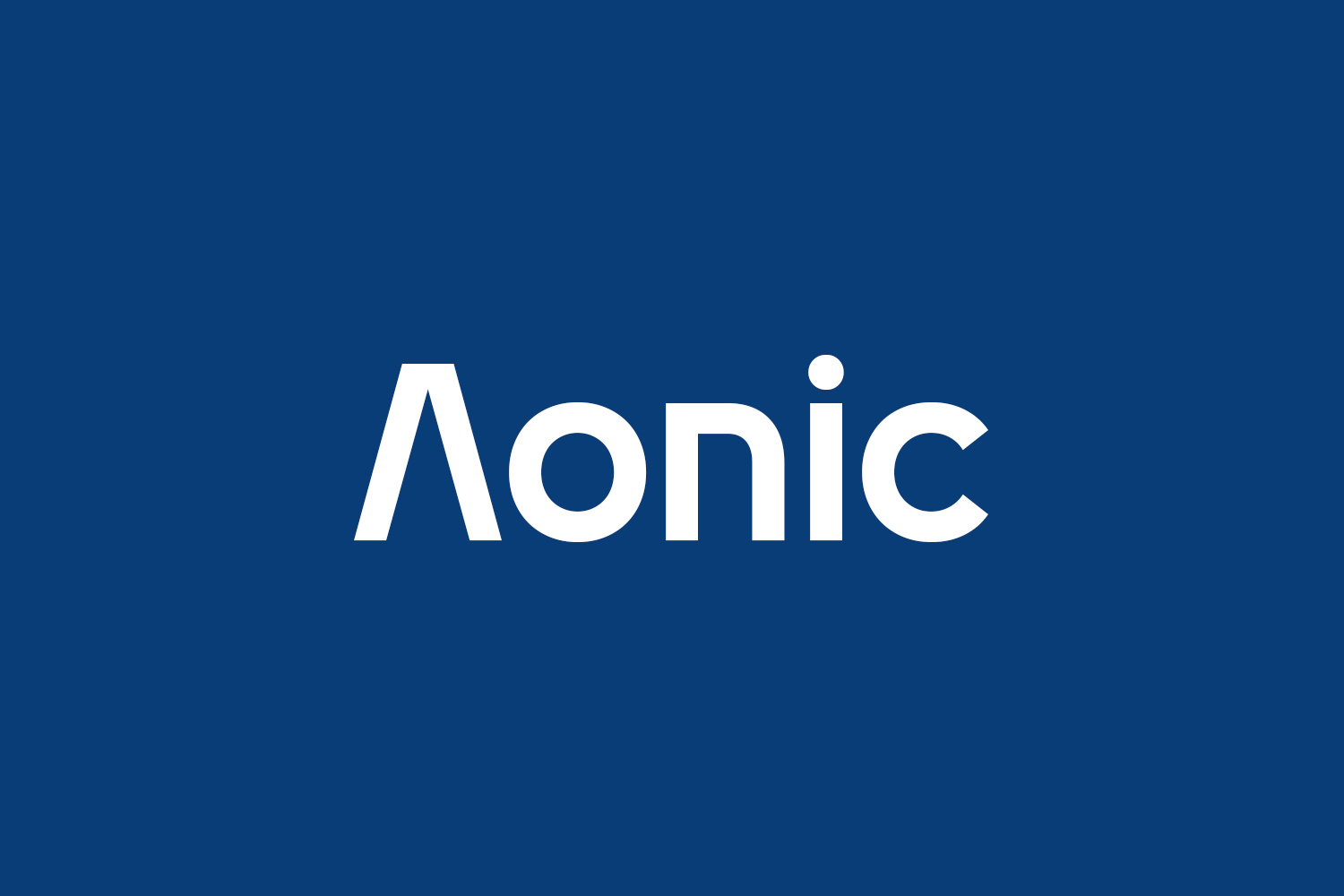
Aonic is a minimalist and modern sans-serif typeface designed by Sign Studio to bring clarity and elegance to your creative projects. With its clean lines, structured detailing, and neutral tone, this free decorative font works perfectly for crafting sleek logos, digital interfaces, magazine headers, brand kits, and more. Available in TTF format — ideal for designers seeking a professional, readable font that enhances legibility without overpowering your layout.
Why Choose Aonic?
- Clean & Minimalist Style: Combines simplicity with functionality for a balanced, contemporary appearance.
- Ideal for Editorial Design: Perfect for blog headers, article titles, or advertising needing a crisp, modern look.
Where to Use Aonic?
Aonic shines across a variety of design applications:
- Logos & Brand Identity: Adds sophistication to brand identities for tech startups, lifestyle blogs, or minimalist studios needing a clean tone.
- Digital Interfaces: Ideal for web headers, landing page buttons, or mobile app text where clear communication is essential.
- Editorial Headers: Stands out in blog titles, magazine covers, and banners with a crisp, stylish charm.
- Packaging Design: Enhances product tags on artisanal goods, clothing labels, or food packaging requiring a modern look.
- Social Media Graphics: Creates bold text overlays for Instagram Stories, TikTok videos, or YouTube banners with a sleek presence.
Design Tips with Aonic
Designed by Sign Studio